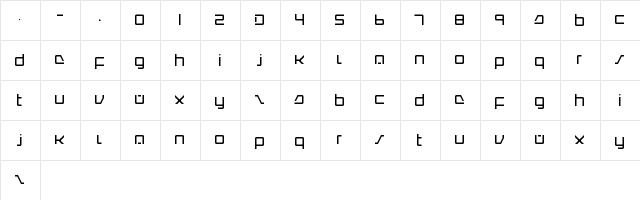
Intercorp Redux Regular
Design Context for Intercorp Redux Typeface
Intercorp Redux takes a measured approach to typography — its balanced proportions and neutral character make it a reliable workhorse for both digital and print work.